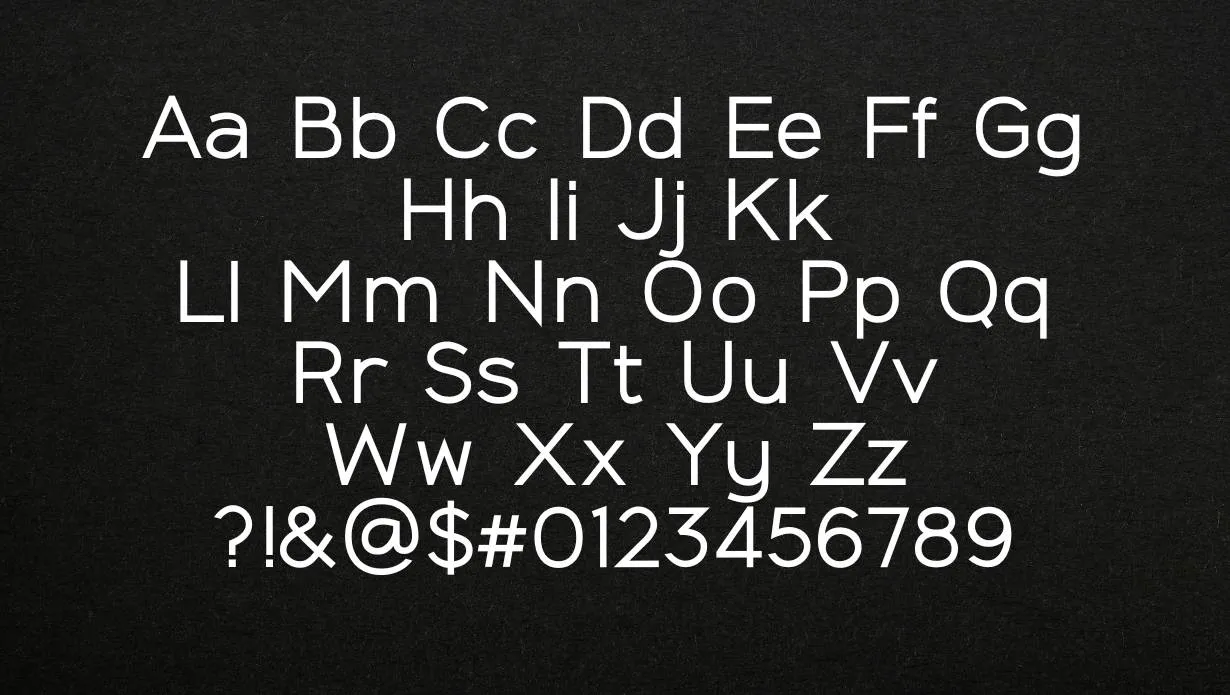
The Adget Font is a modern twist in typography, perfect for projects that embrace a sleek and contemporary look. Its stylish characters make it ideal for logos or branding, ensuring a fresh and modern appearance.
| Name | Adget Font |
| Designer | Adam Greasley |